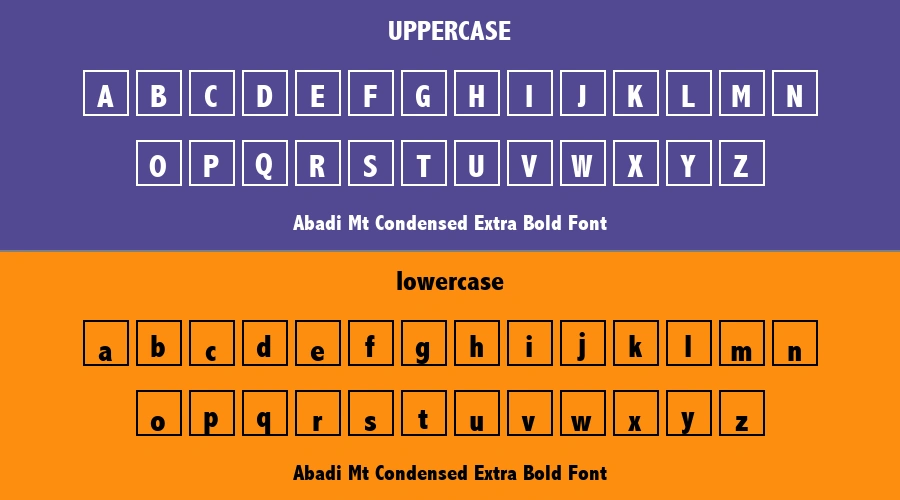
About Abadi Mt Condensed Extra Bold Font
Designed with precision, Abadi Mt Condensed Extra Bold Font merges flared stems with textual warmth in every character. This versatility makes it particularly effective for engineering drawings, where adaptability and creative impact directly impact communication quality. Each letterform demonstrates meticulous craftsmanship.
Technical excellence shines through elements like elegant proportions and contextual alternates, enhancing typographic versatility. In regulatory documents settings, Abadi Mt Condensed Extra Bold Font proves its worth through superior rendering. The thoughtful execution of corner treatment and emotional resonance ensures professional results.